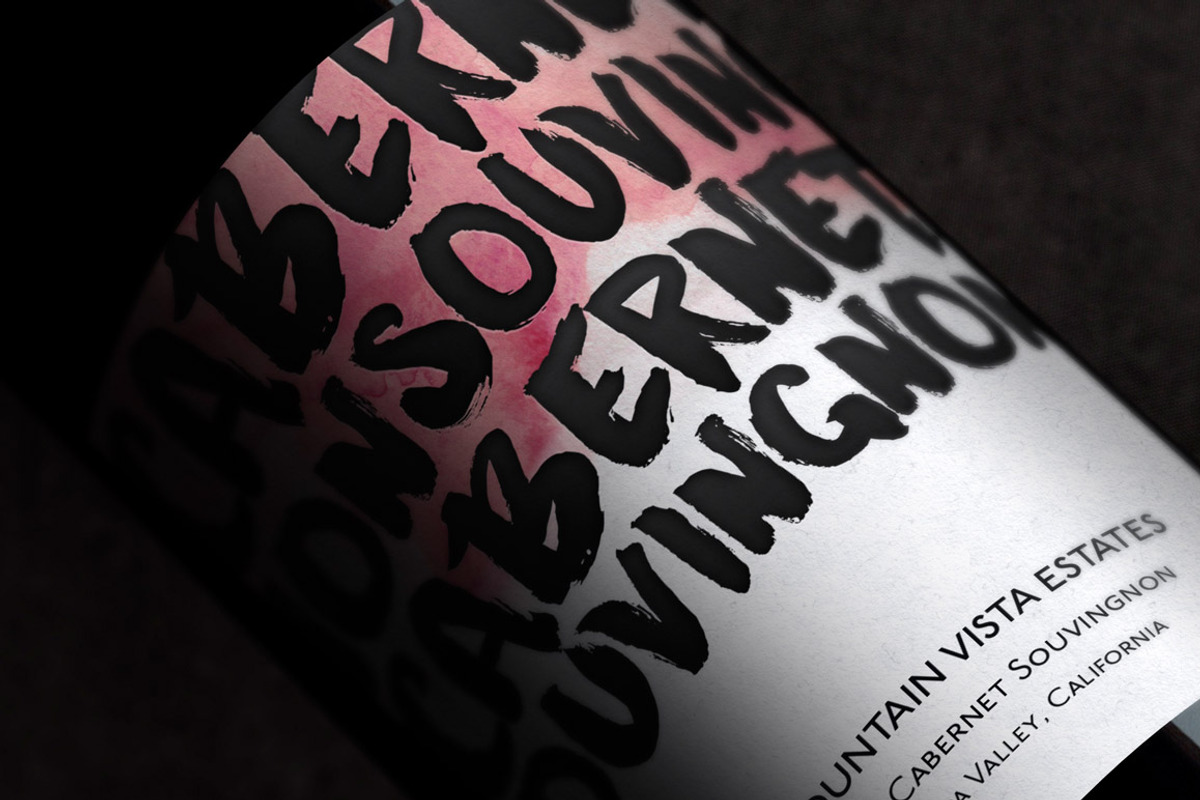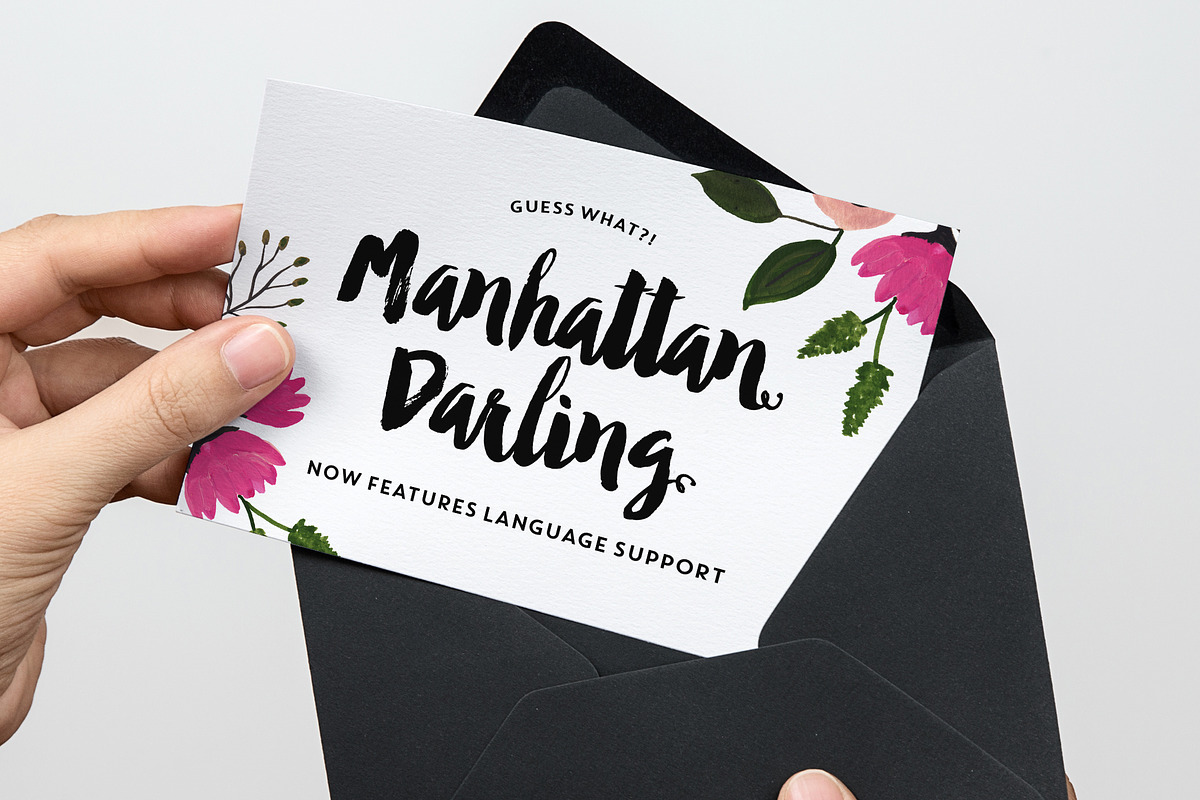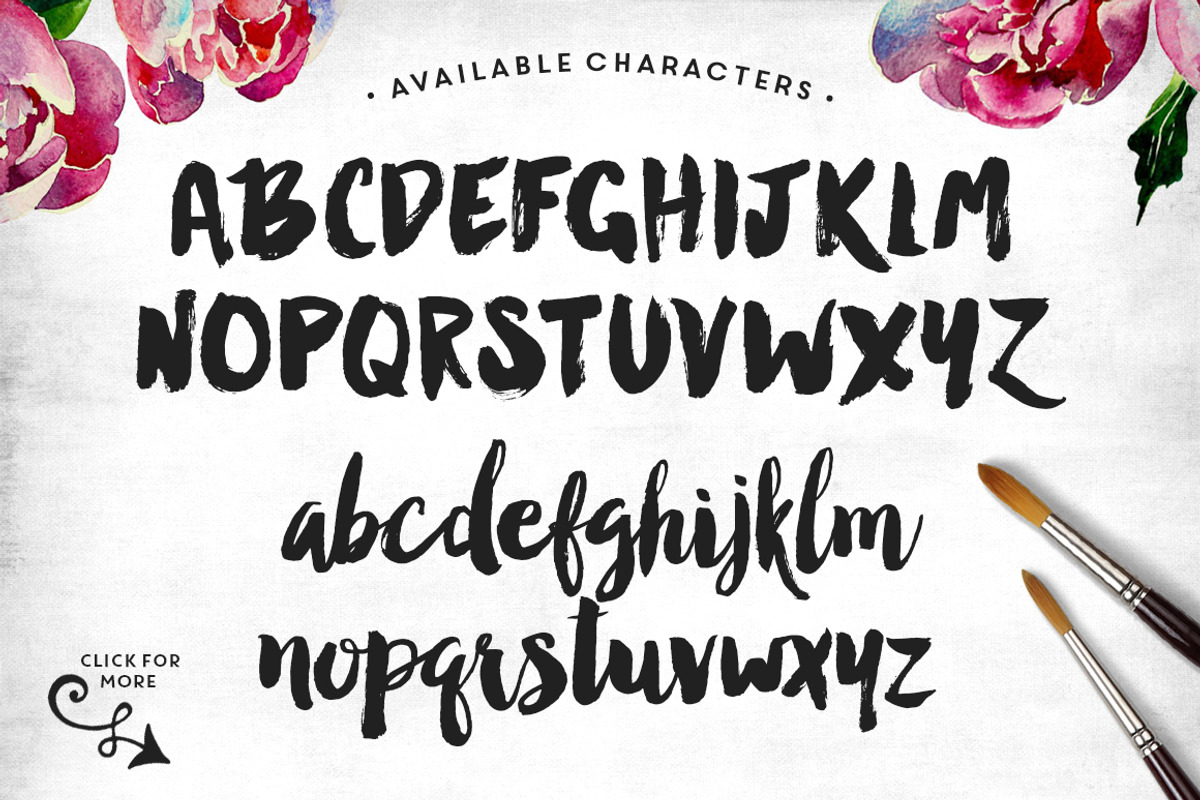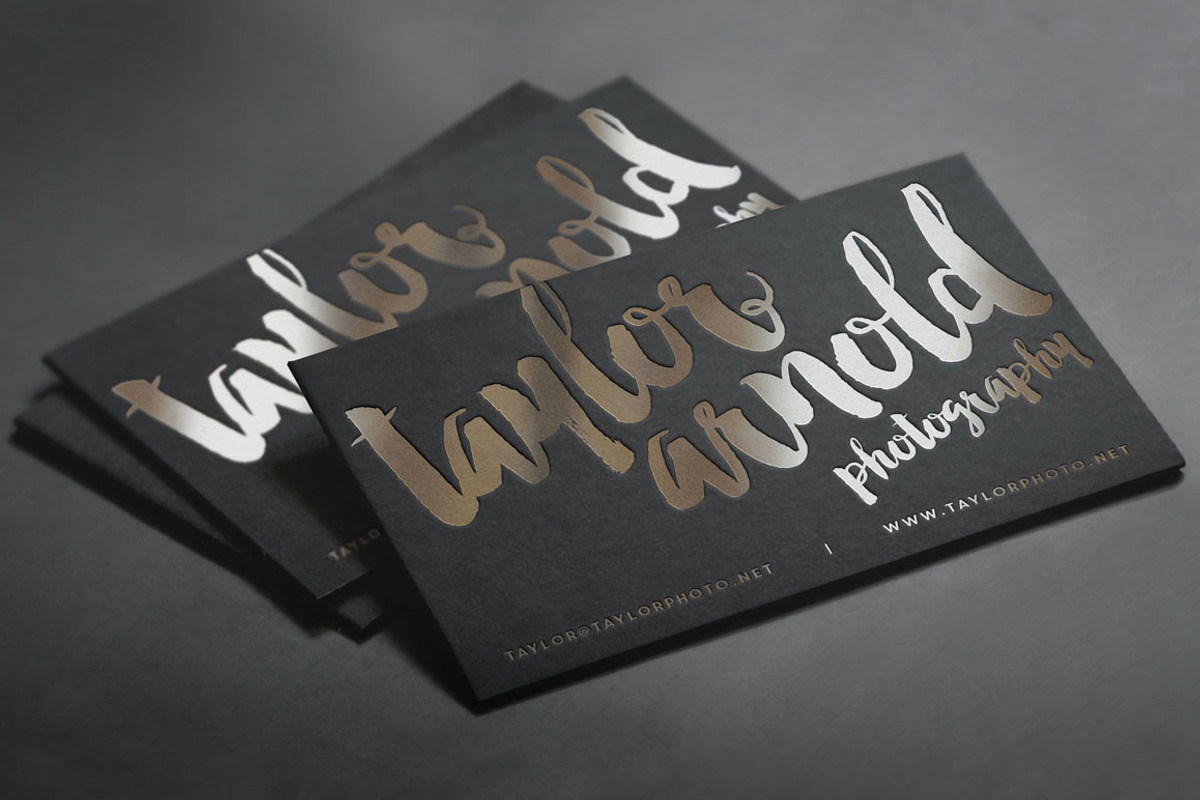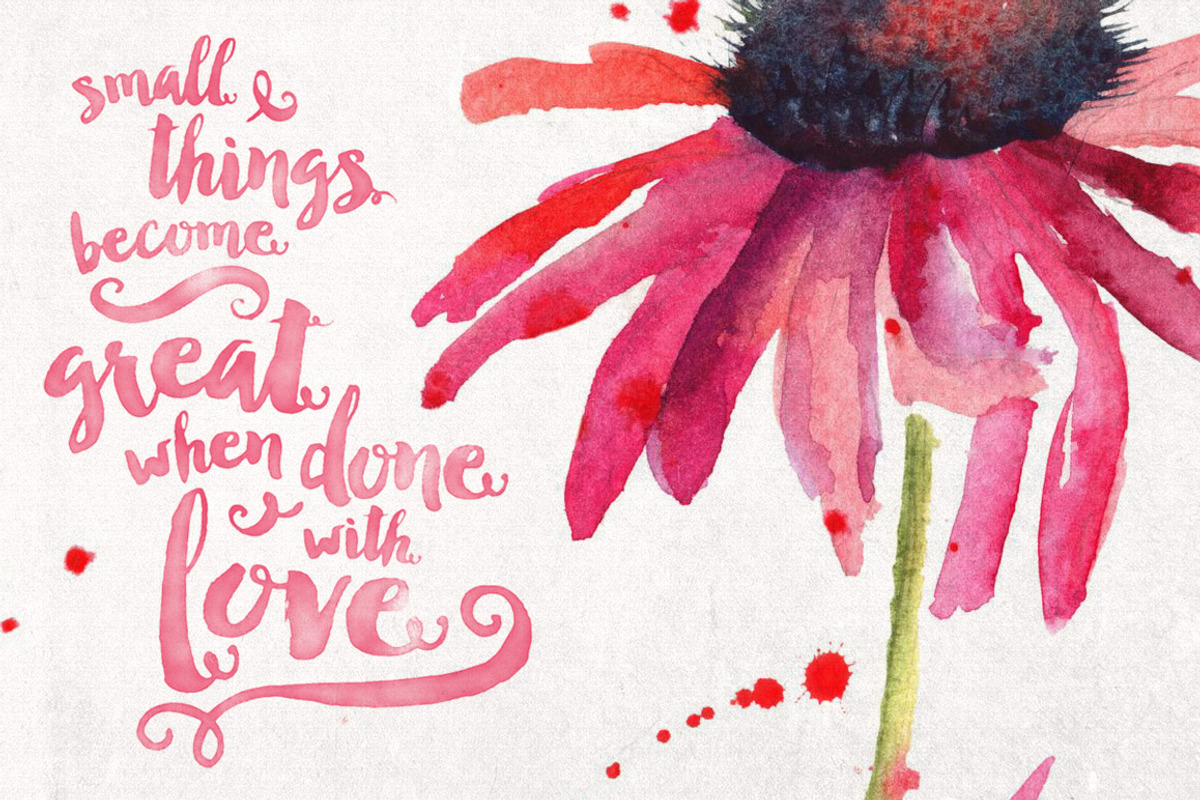
Manhattan Darling Typeface + BONUS
Manhattan Darling Typeface + BONUS by Callie Rian & Co. is a font selected for branding, posters, packaging, typography.
- Manhattan Darling Typeface was created as a dual-purpose font, with gritty, imperfect, hand-painted characters and an irregular baseline.
- Use the uppercase portion (Manhattan) to create a bold, organic hand-painted typography (see wine bottle preview), or use the lowercase port
- NOTE: The end characters are just that, ENDS.
Manhattan Darling Typeface + BONUS by Callie Rian & Co. fits naturally into Branding, posters, packaging, typography.